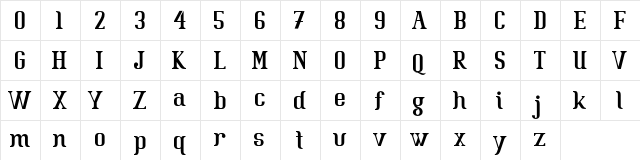
Batavia Glamore BOLD Bold
Design Context for Batavia Glamore BOLD Typeface
Batavia Glamore BOLD is a composed and adaptable typeface that performs quietly and consistently across a wide range of design contexts. The heavy weight commands attention and anchors typographic hierarchies.